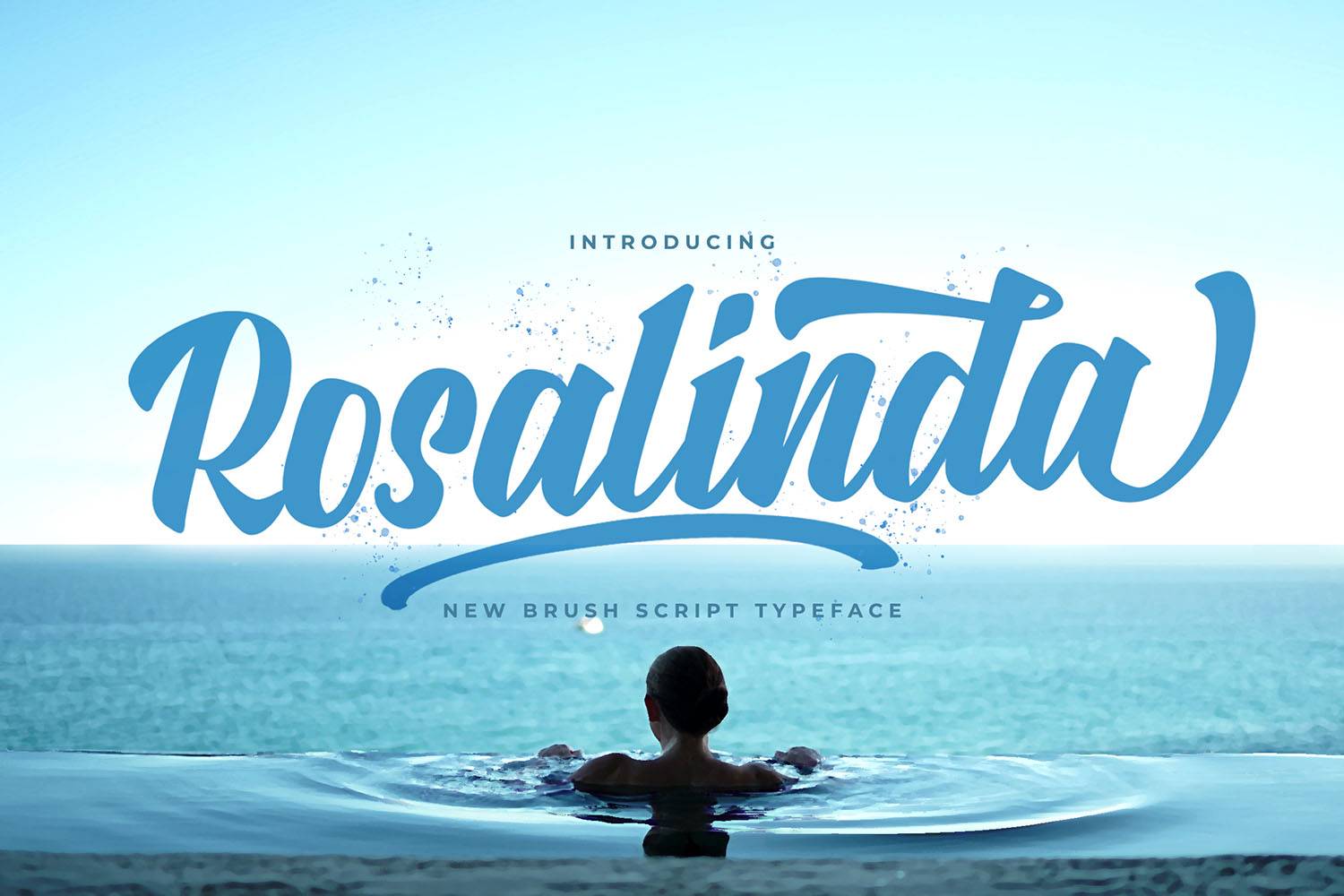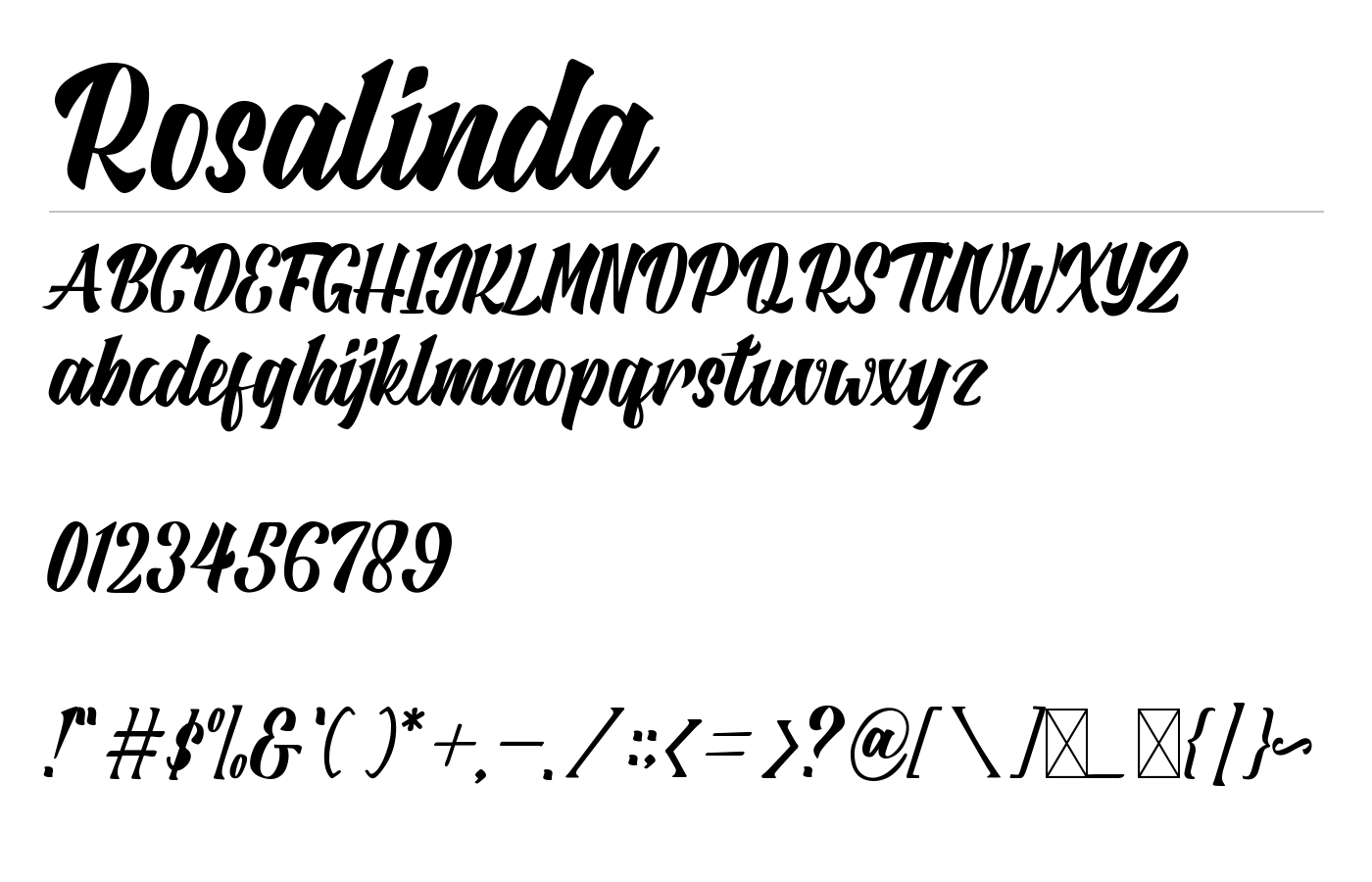
Rosalinda is a bold and elegant script font with a brush-lettering style that combines smooth, flowing curves with sharp, dynamic strokes. Its upright italic posture and high contrast between thick and thin lines give it a lively, confident personality, making it perfect for stylish branding, logos, and headlines that seek a sophisticated yet approachable feel. This font works well in fashion, invitations, and editorial designs where a blend of charm and modern flair is desired.
Rosalinda Font
About Rosalinda Font